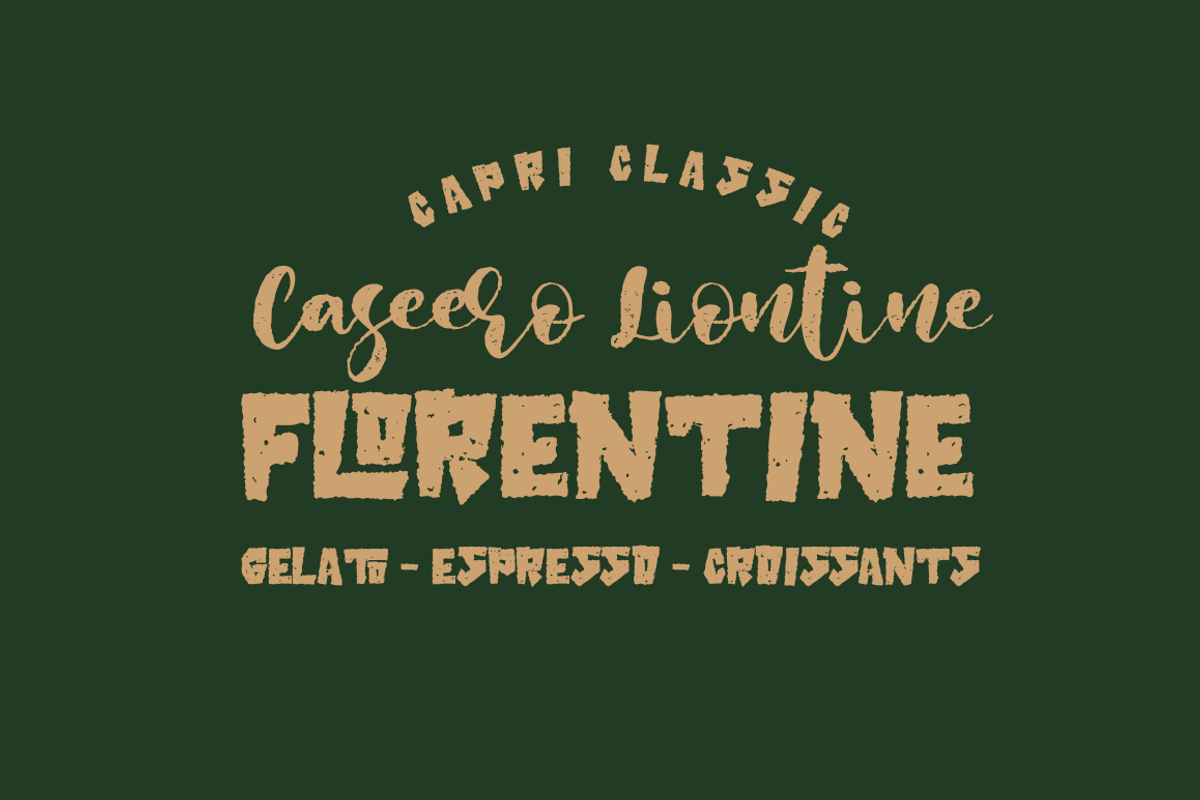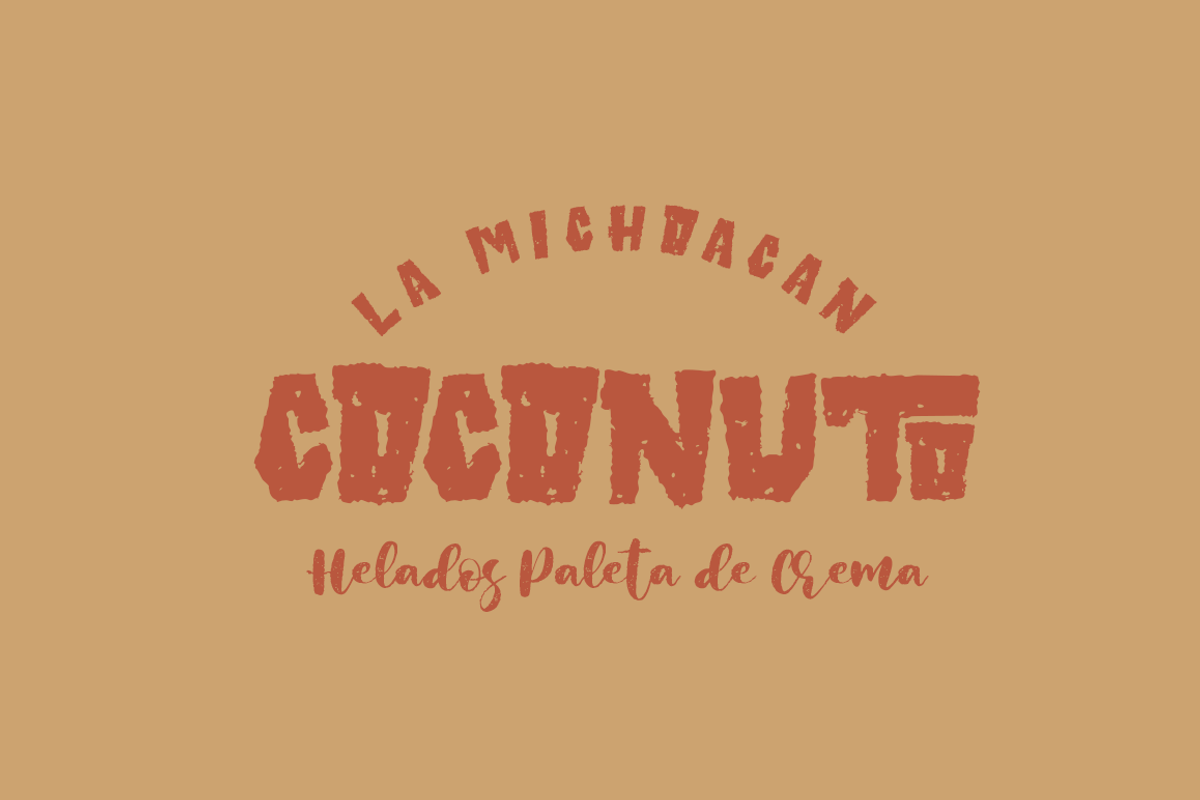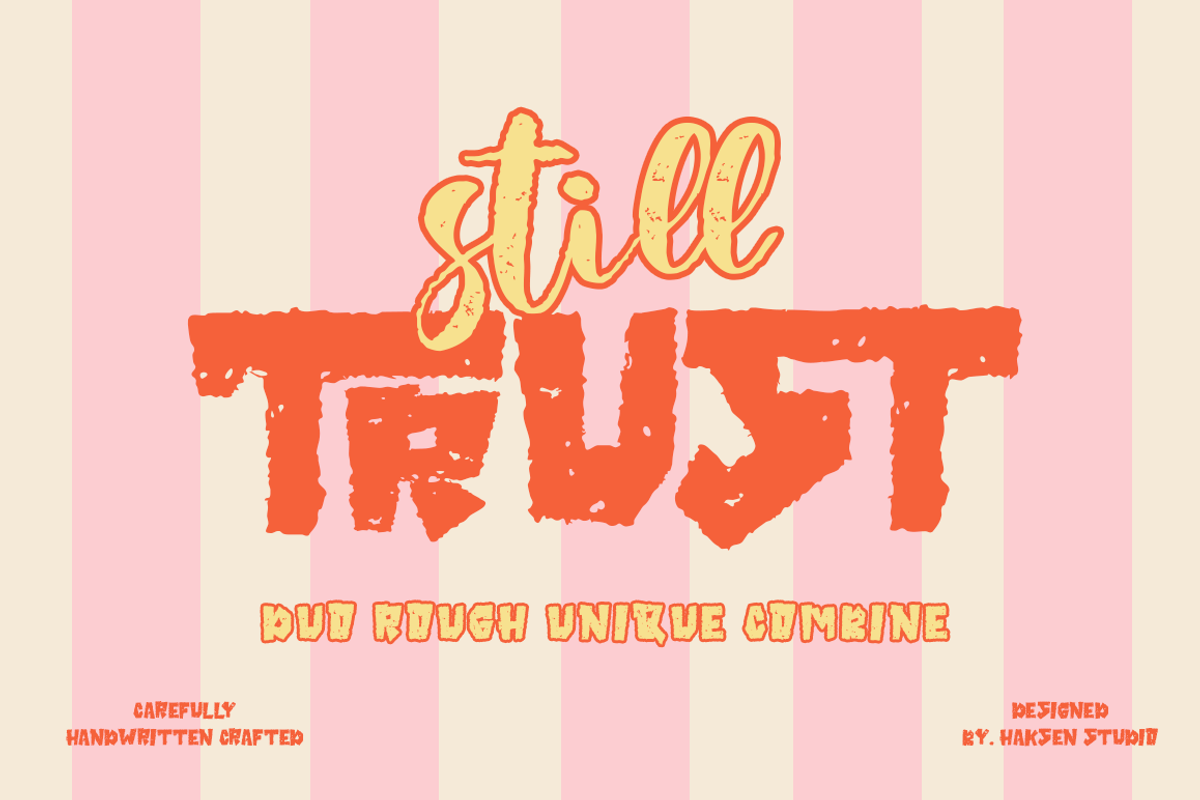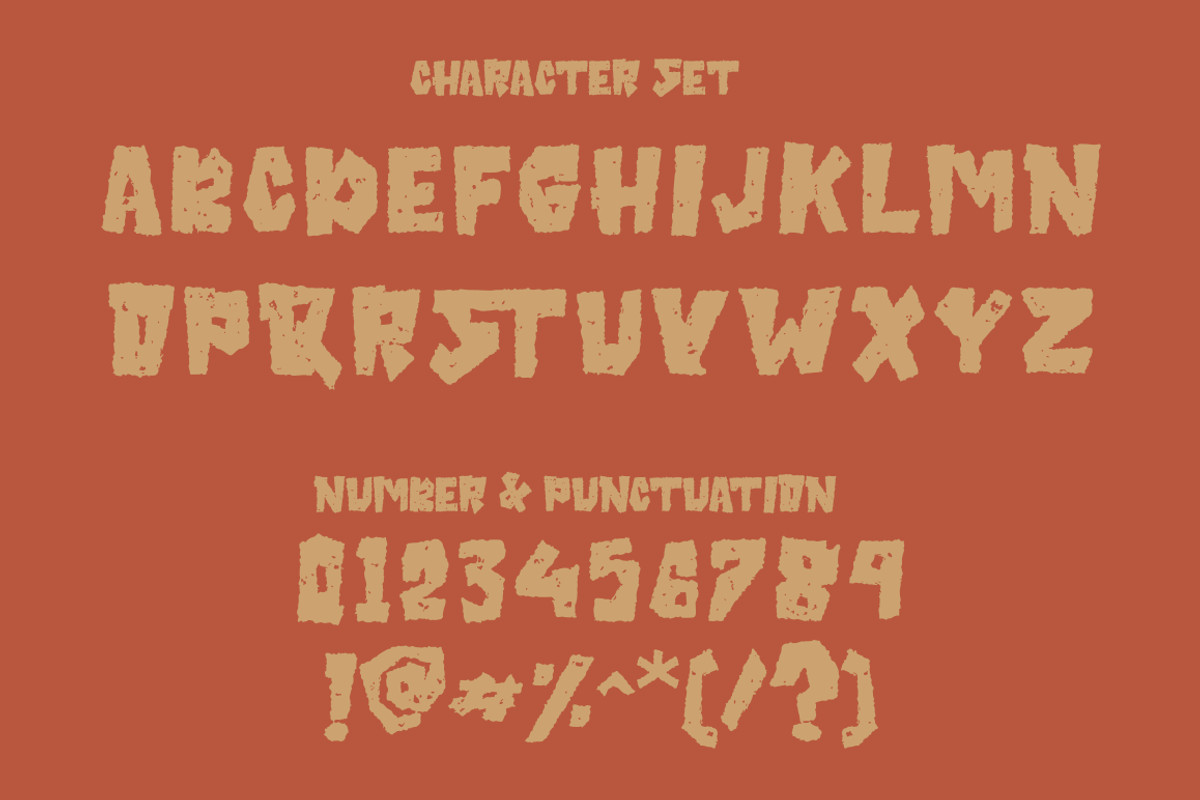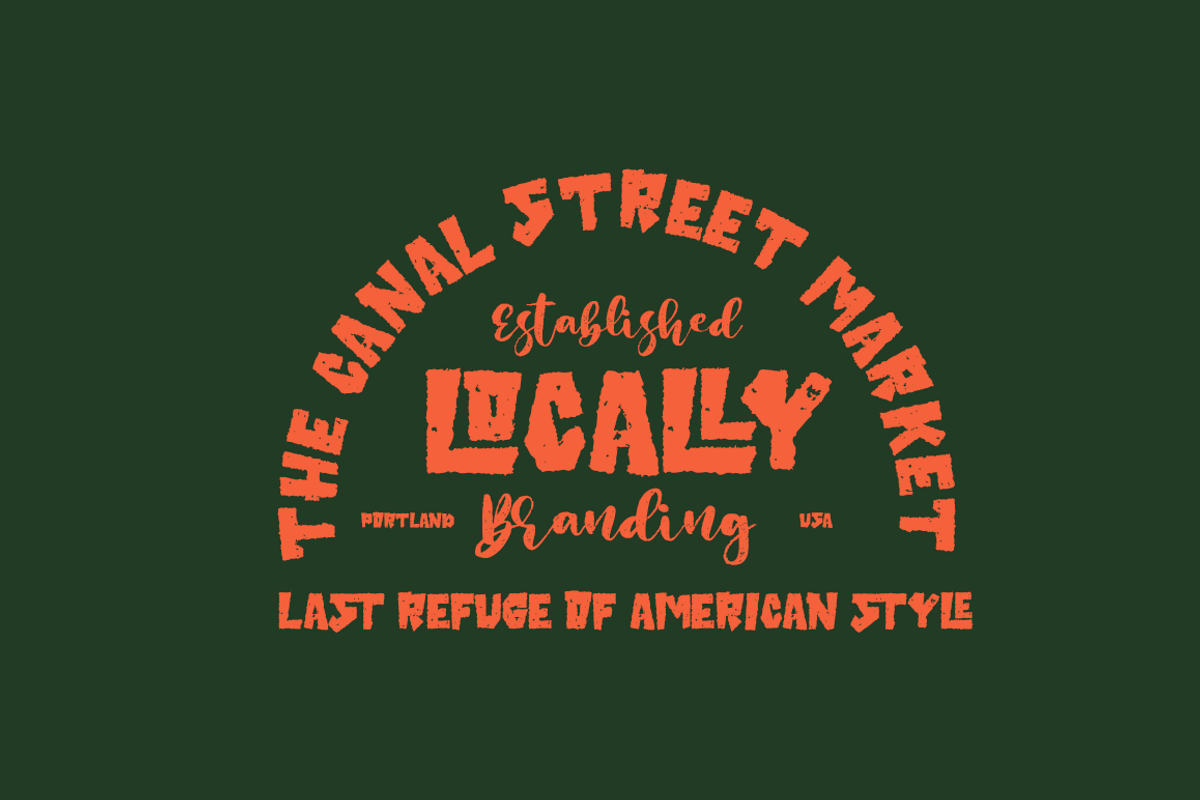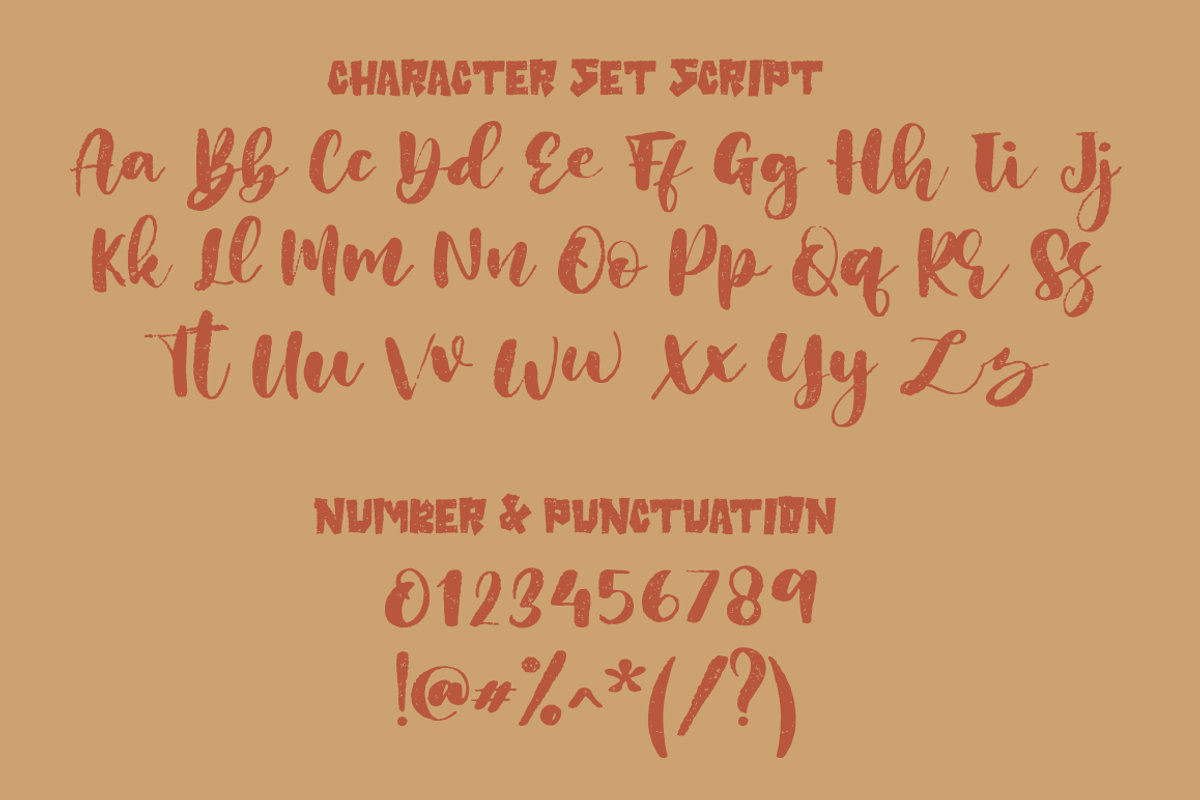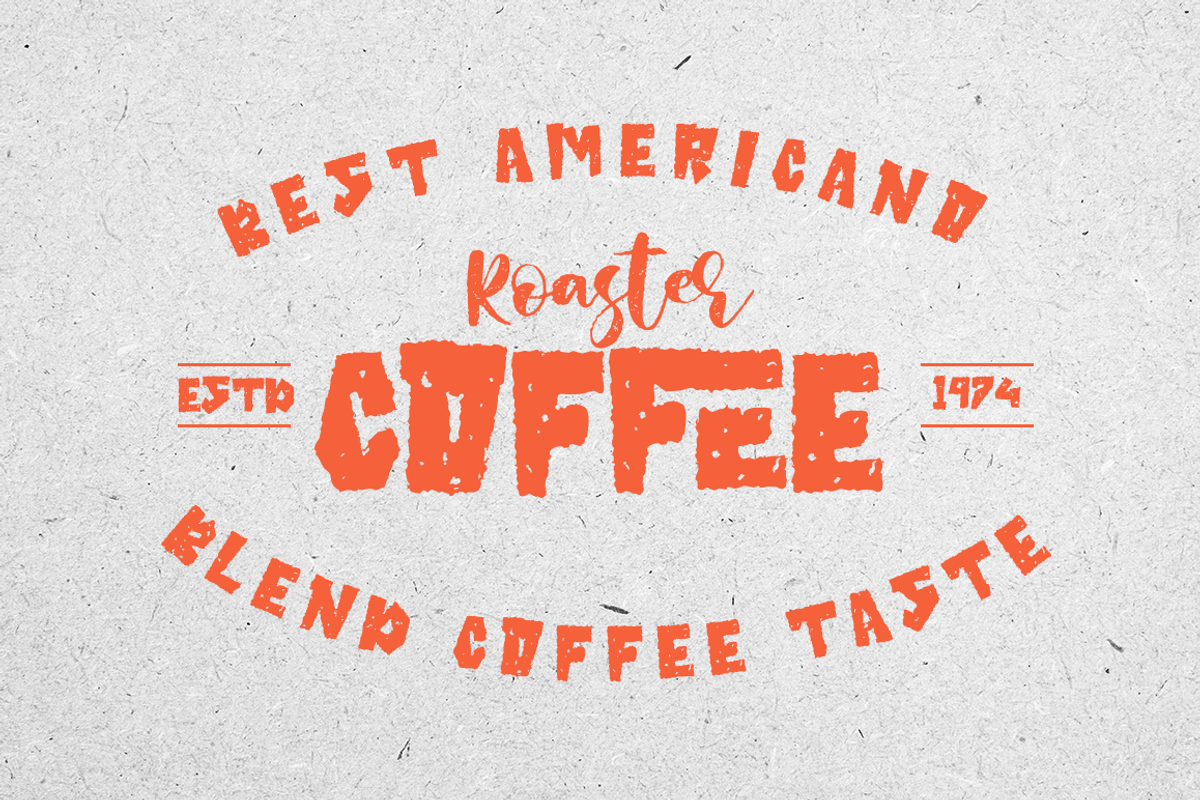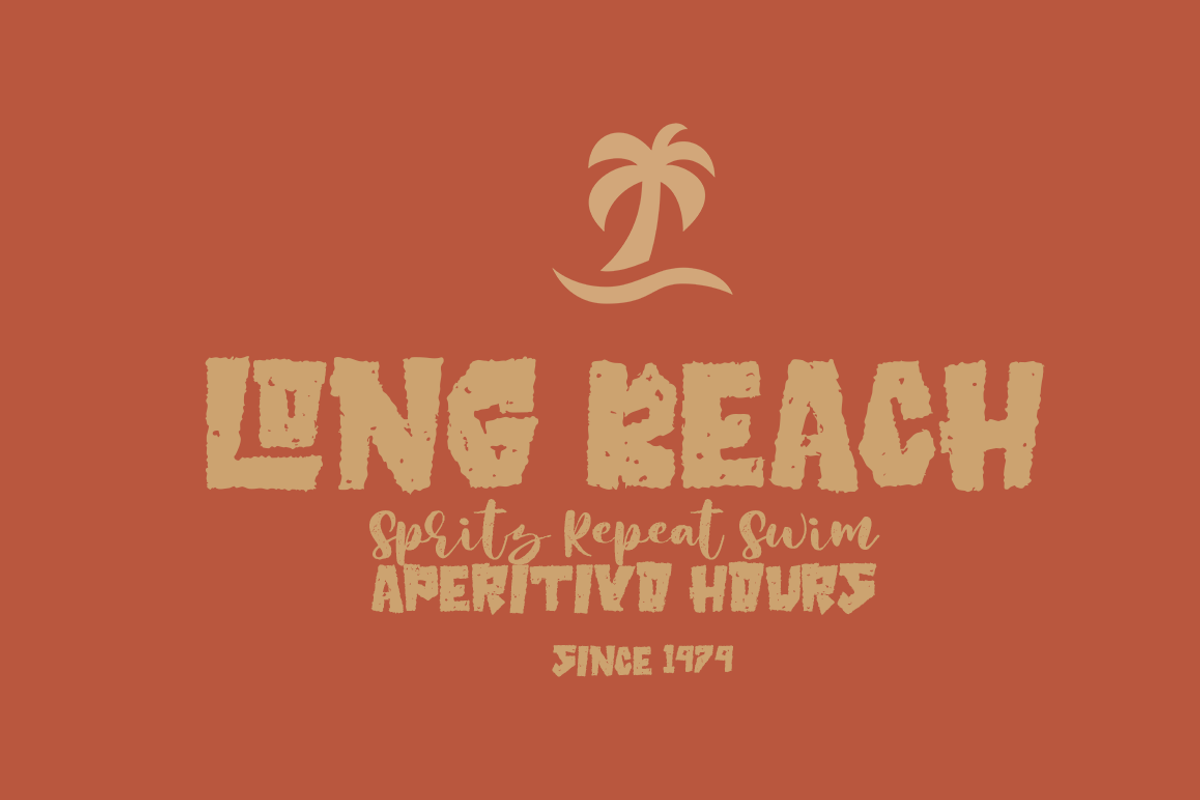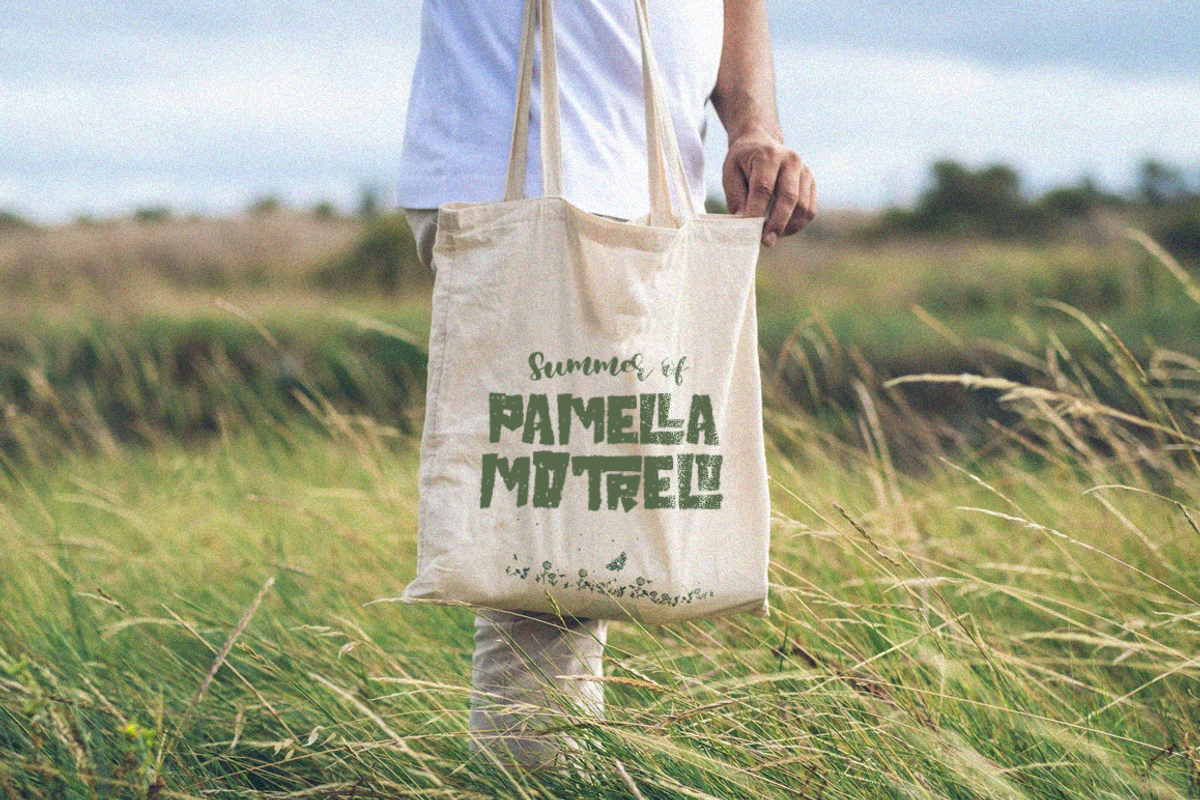
Still Trust - Combine Handwritten
Still Trust is a bold and expressive handwritten display font that combines a rough vintage texture with a natural handcrafted feel. Featuring a unique blend of script and distressed block lettering, this font delivers an authentic retro aesthetic that instantly adds personality and charm to your designs.
Perfect for branding projects, coffee shop logos, packaging, apparel, posters, social media graphics, merchandise, labels, and vintage-inspired artwork. The imperfect details and textured edges create a warm, handcrafted appearance that stands out in both digital and print applications.
Unique handcrafted display font
Rough and distressed vintage texture
Uppercase & lowercase characters
Numbers and punctuation included
Script and bold display style combination
Benefits
Creates an authentic handmade and vintage look
Makes branding feel more personal and memorable
Adds character and visual impact to headlines
Enhances retro, rustic, and artisanal design themes
Perfect for eye-catching logos and product packaging
Saves time with ready-to-use handcrafted aesthetics
Works beautifully for both modern and nostalgic designs
Coffee Shop Branding
Food & Beverage Packaging
T-Shirt & Merchandise Design
Posters & Flyers
Labels & Stickers
Social Media Content
Craft & Handmade Products
Retro Branding Projects
Vintage-Inspired Designs
Bring a touch of handcrafted authenticity to your creations with Still Trust — a distinctive display font designed to make every design feel unique, bold, and full of character.